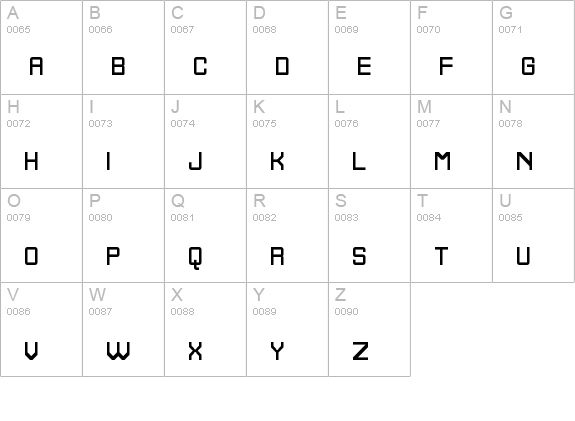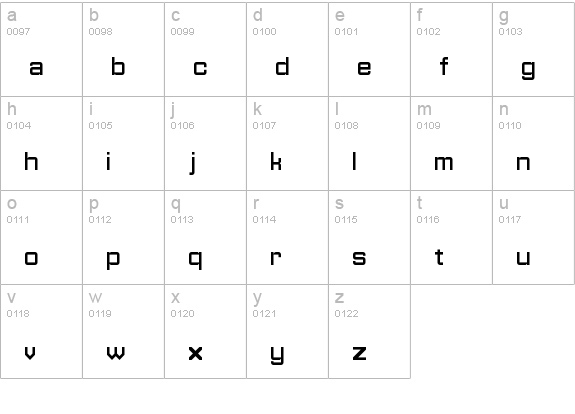
Homestile Regular is the standard, neutral variant in the Homestile typeface family \xE2\x80\x94 well suited to general body text, paragraphs, and standard typographic work.
Homestile Regular font is a versatile and stylish typeface that adds a touch of elegance to any design project. Its clean and modern lines make it perfect for both digital and print applications. The font features a balanced combination of rounded corners and straight edges, creating a harmonious blend of contemporary and classic design elements. With its wide range of weights and styles, Homestile Regular font offers endless possibilities for creative expression. Whether you're designing a logo, a website, or a poster, this font will elevate your work to new heights. Its legibility and readability ensure that your message will be conveyed with clarity and impact. One of the best things about Homestile Regular font is that it is available for free! You can easily download it at FontsMarket.com, a trusted source for high-quality fonts. This means that you can use it in personal and commercial projects without any restrictions. Whether you're a professional designer or a hobbyist, this font is a valuable addition to your toolkit. Homestile Regular font is designed with precision and attention to detail, ensuring that every letter, every curve, and every line is crafted with care. Its versatility and timeless appeal make it suitable for a wide range of projects, from branding to editorial design. With its clean and modern aesthetic, this font is sure to make a lasting impression. In conclusion, Homestile Regular font is a must-have for any designer looking to add a touch of sophistication to their work. It is freely available to download at FontsMarket.com, making it accessible to everyone. Its versatility, elegance, and high-quality design make it a valuable asset in any creative project.